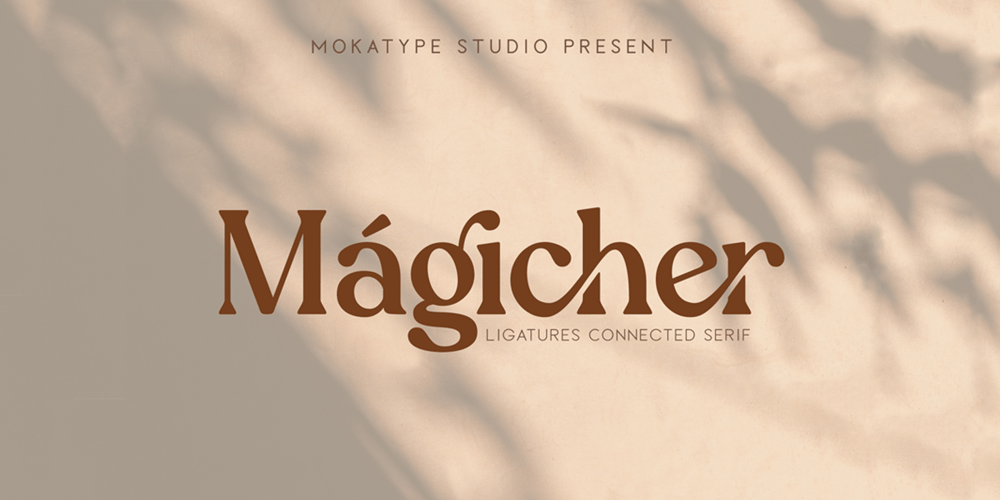
Magicher Font Family was designed by Abdul Malik Wisnu, Rivo Adriansyah and published by Mokatype Studio. Magicher contains 2 styles and family package options. Hello Introducing Magicher – Ligatures Connected Serif is an elegant, unique font that uses ligatures to smoothly link letters. Perfect for adding a unique twist to word-mark logos, monograms or pull quotes. Magicher has 52 ligatures as well as numbers and punctuation making it super fantastic.Ligature can be turned off if required standard writing needs. Accessible in the Adobe Illustrator, Adobe Photoshop, Adobe InDesign, even work on Microsoft Word. PUA Encoded Characters – Fully accessible without additional design software. Fonts include multilingual support Image used : All photographs/pictures/vector used in the preview are not included, they are intended for illustration purpose only.Thank You